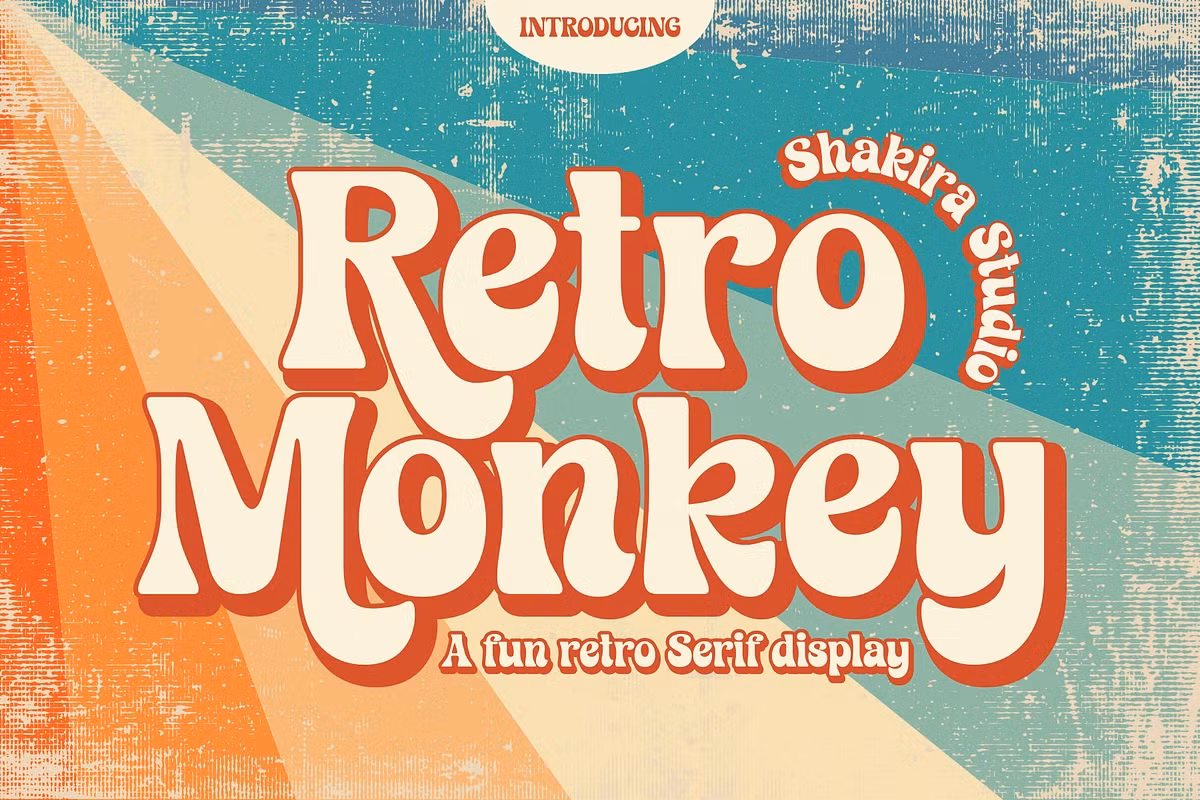
Retro Monkey - Modern Retro Serif Free Download
Retro Monkey Modern Retro Serif Font Free Download is a stylish typeface that combines vintage charm with contemporary sophistication. With its bold serifs, smooth curves, and nostalgic character, this font is perfect for retro branding, logos, posters, packaging, and any project that needs a fresh twist on classic typography.
Whether you’re creating a retro-inspired brand identity, designing an event poster, or crafting a stand-out product label, Retro Monkey adds personality and flair to your typography. It’s the perfect font for designers who love blending retro aesthetics with a modern edge.